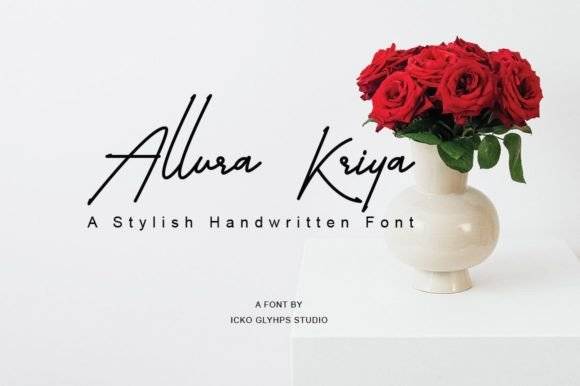
Allura Kriya Font for Headlines, Posters and Branding Projects
This elegant typeface delivers a modern yet graceful presence, perfect for headline text, poster designs, and professional branding elements. Allura Kriya features refined strokes and well-balanced spacing, creating visual harmony in large-format typography.
As a font entity, it’s tailored to designers who value both form and function. Whether in digital campaigns or print materials, Allura Kriya stands out with its contemporary elegance and clean structure.
Use it to elevate brand narratives and deliver text that commands attention with style.
- Brand strategists and graphic designers
- Poster and advertising creators
- Editorial layout artists
- Creative professionals and agencies
- Luxury product designers
- Headline posters and magazine covers
- Premium brand identity designs
- Product labels and high-end packaging
- Social media content and campaigns
- Digital banners and promotional graphics
- Elegant, contemporary style for elevated design
- Strong visual identity in large text formats
- Works seamlessly in print and digital
- Ideal for high-impact branding
Q: What type of font is Allura Kriya?
A: Allura Kriya is a refined display font designed for use in large-scale applications such as headlines, posters, and branding visuals. Its elegant curves and distinctive character make it stand out in any design scenario, ensuring that messages are communicated effectively and attractively. Additionally, when paired with complementary typefaces, Allura Kriya enhances the overall aesthetic of various projects, making it a fantastic choice alongside the amrina font for branding projects. This versatility allows designers to create cohesive and impactful visual identities that resonate with audiences.
Q: Is it good for poster designs?
A: Absolutely. Its balanced curves and visual presence make it ideal for poster and cover designs.
| Feature | Allura Kriya | Modern Serif A | Luxury Script B |
| Font Style | Elegant modern display | Clean serif type | Cursive script with ligatures |
| Best Use | Headlines, branding, posters | Web banners, infographics | Invitations, personal branding |